Graffiti Font Generator
Real graffiti lettering is hand-styled art no text generator can fully reproduce, but Drip's below-the-line combining marks read as the closest plain-text stand-in for dripping spray paint.
Pair Drip with Bold Gothic for heavier, more graffiti-style letterforms underneath the drip effect.
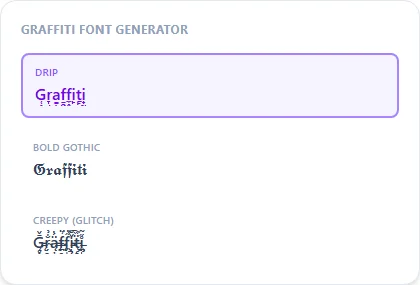
Real graffiti is hand art — this is a quick text effect
Graffiti lettering, especially wildstyle and bubble-throw pieces, is a decades-old street art tradition with enormous individual variation between artists. Nothing a plain-text generator does is a substitute for that craft. What Drip offers instead is combining marks placed only below each letter, so the effect hangs downward the way dripping spray paint would, layered on top of a base letter style like Bold Gothic for extra weight.
Drip + Bold Gothic, the closest single combination
Bold Gothic supplies heavier, more angular letterforms closer to a spray-paint stencil than a plain sans-serif base, while Drip adds the paint-run effect on top. Angular Blocks is a lighter alternative if you want a blockier tag-style look without the drip.
Is this real graffiti art?
No, real graffiti lettering is genuine hand-drawn art with far more variation than any text substitution can produce. This gives you a quick dripping-paint text effect, not a design tool.
What does the Drip style actually do?
It adds combining marks below each letter only, so the effect hangs downward like dripping paint rather than scattering marks above and below like standard glitch text.
Best combination for a gangster or street-art themed name?
Drip paired with Bold Gothic is the closest single combination on this site to that look.
Can I adjust how heavy the drip effect looks?
Not independently on this page — for a lighter distortion effect instead of Drip, try Zalgo Medium from the freaky font generator page.